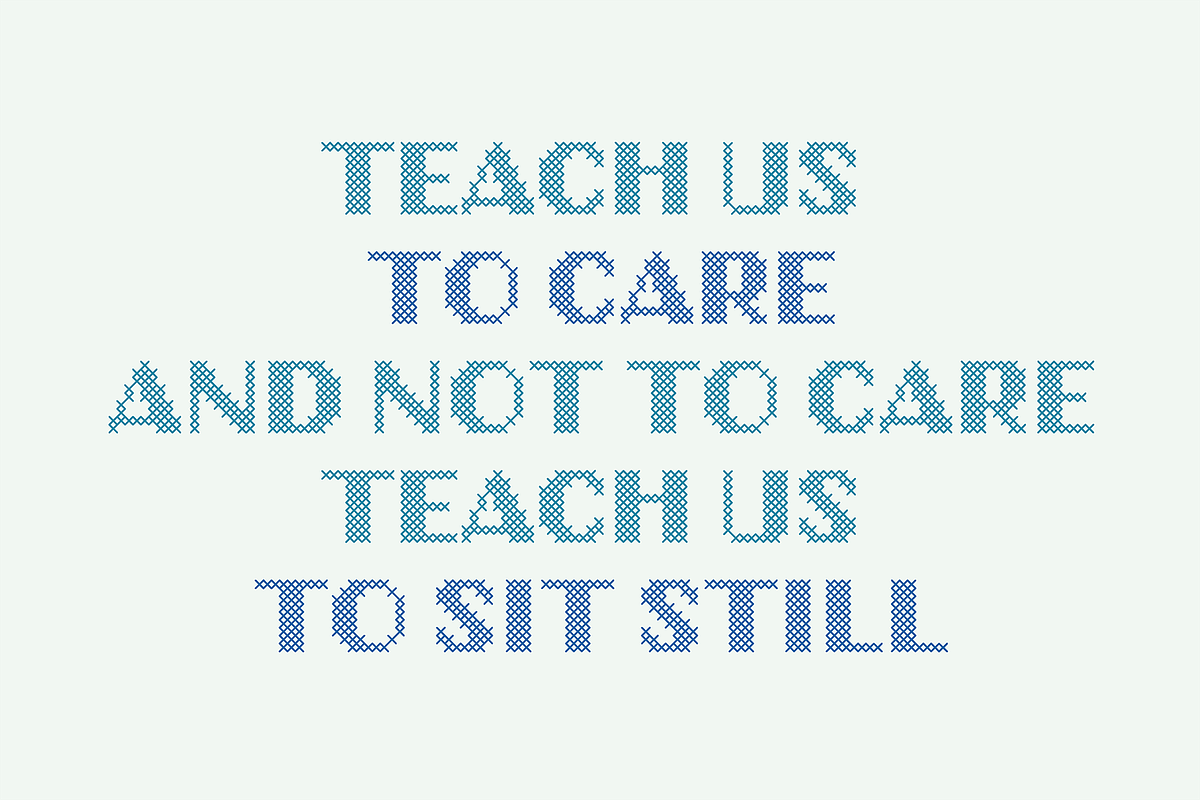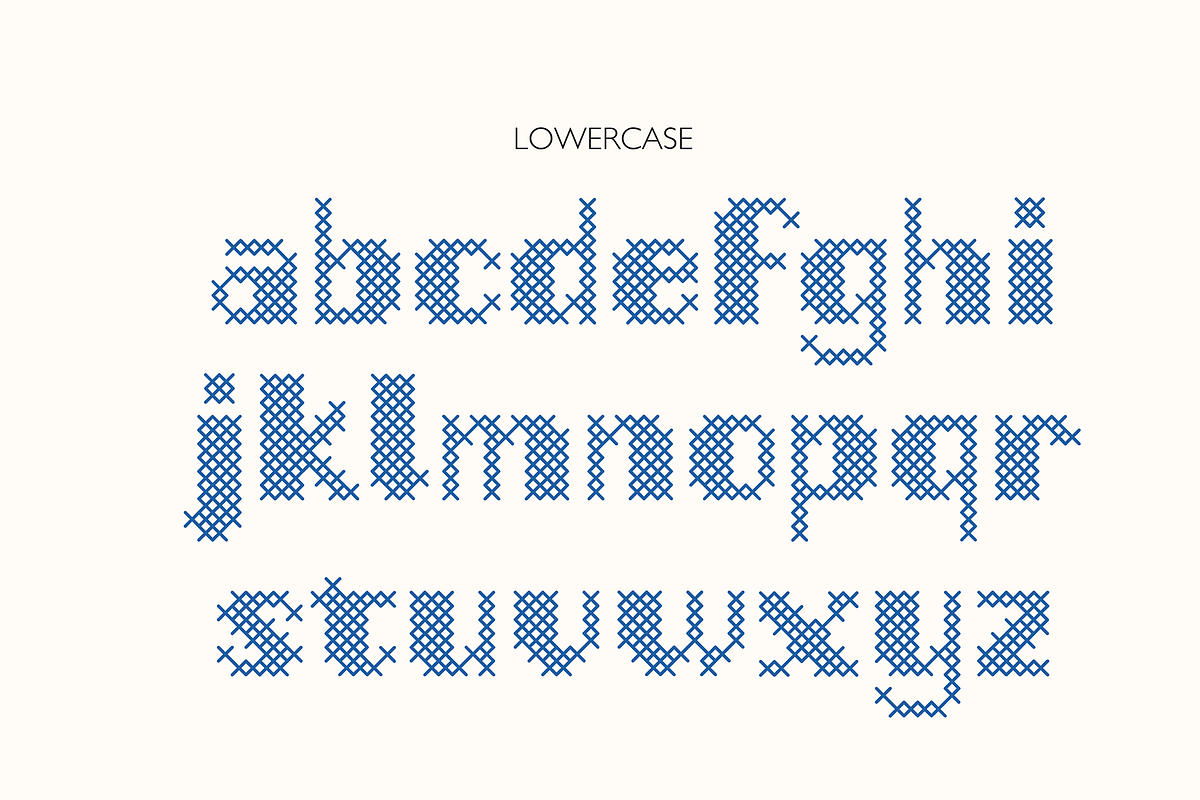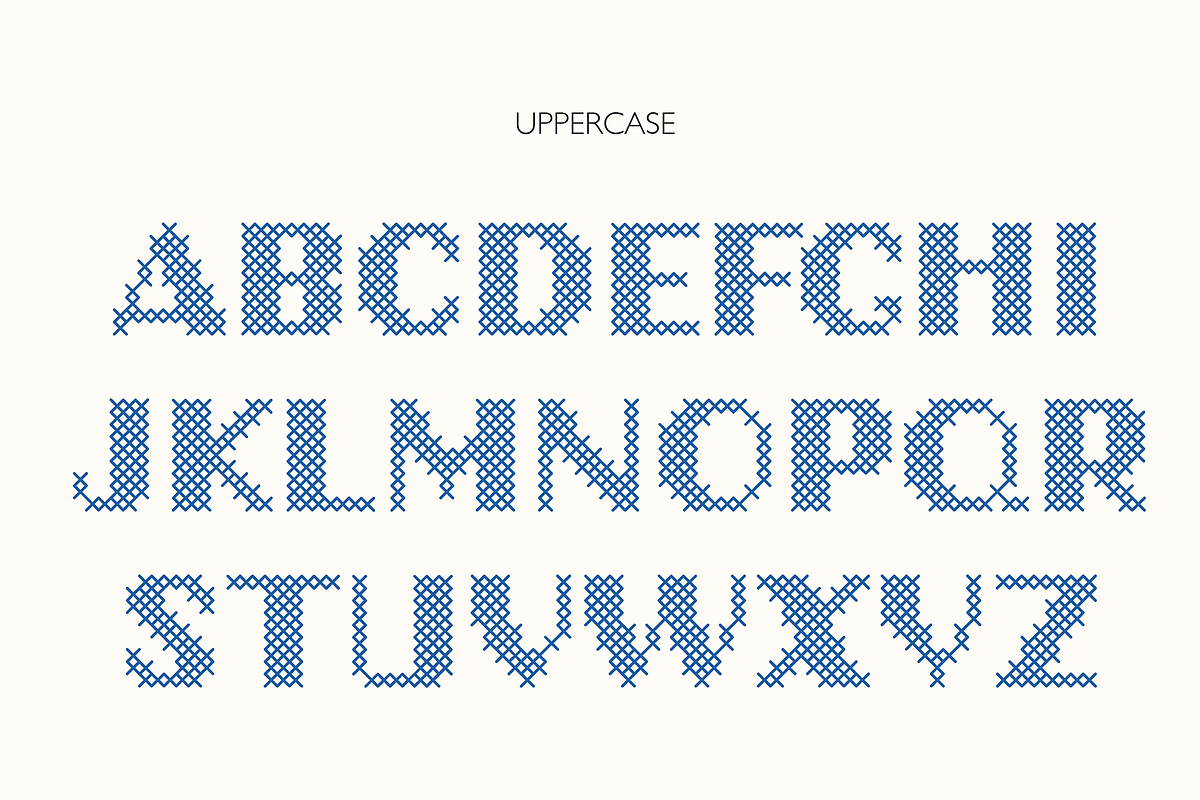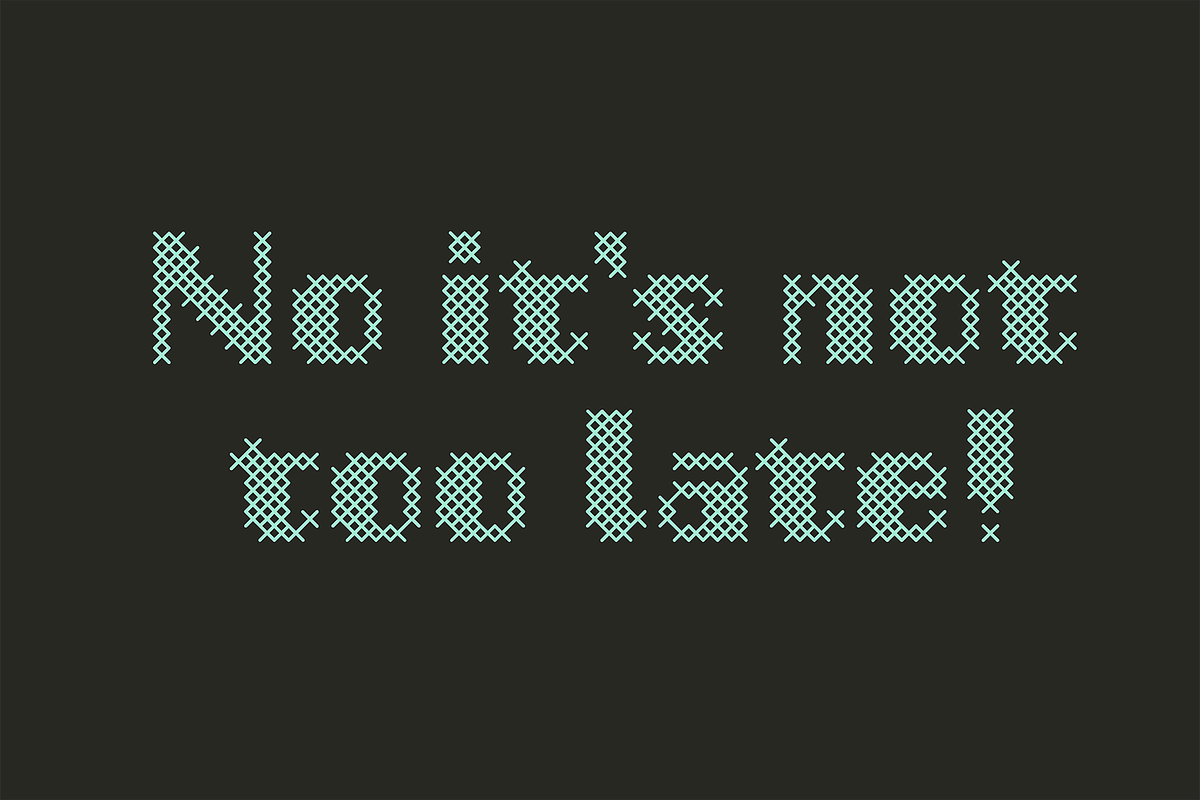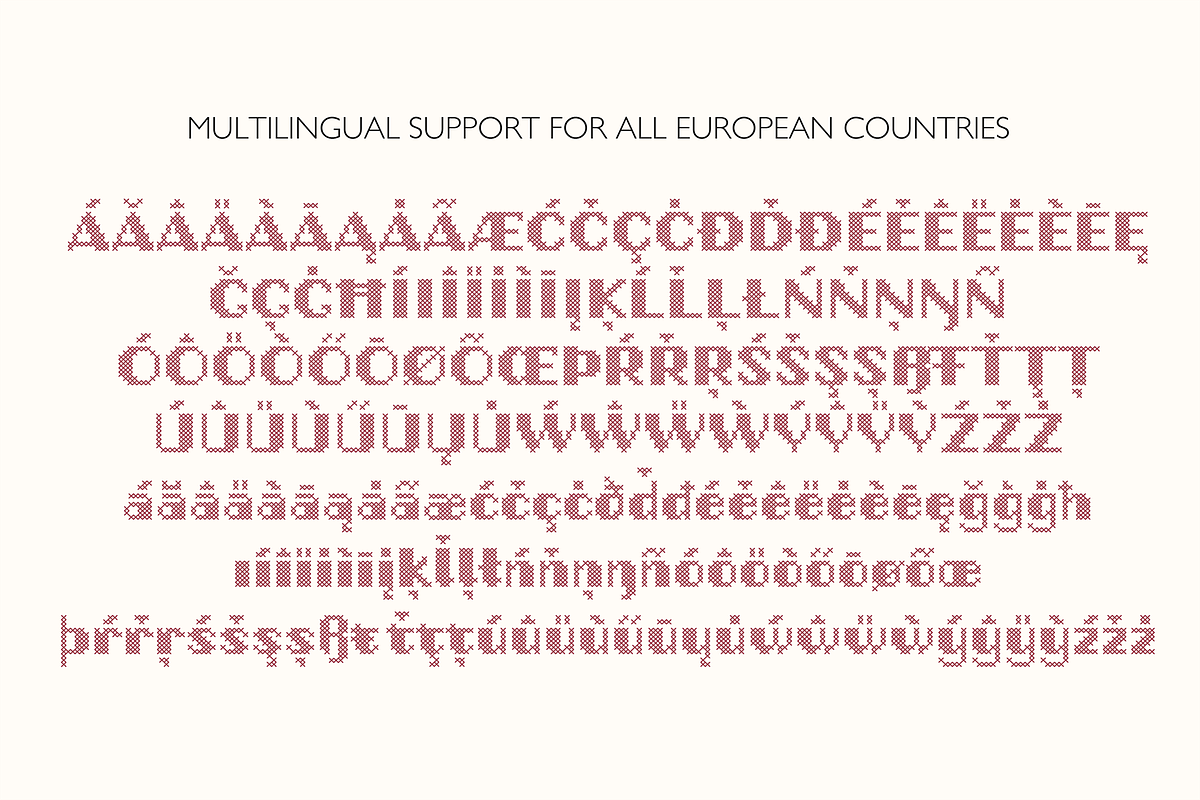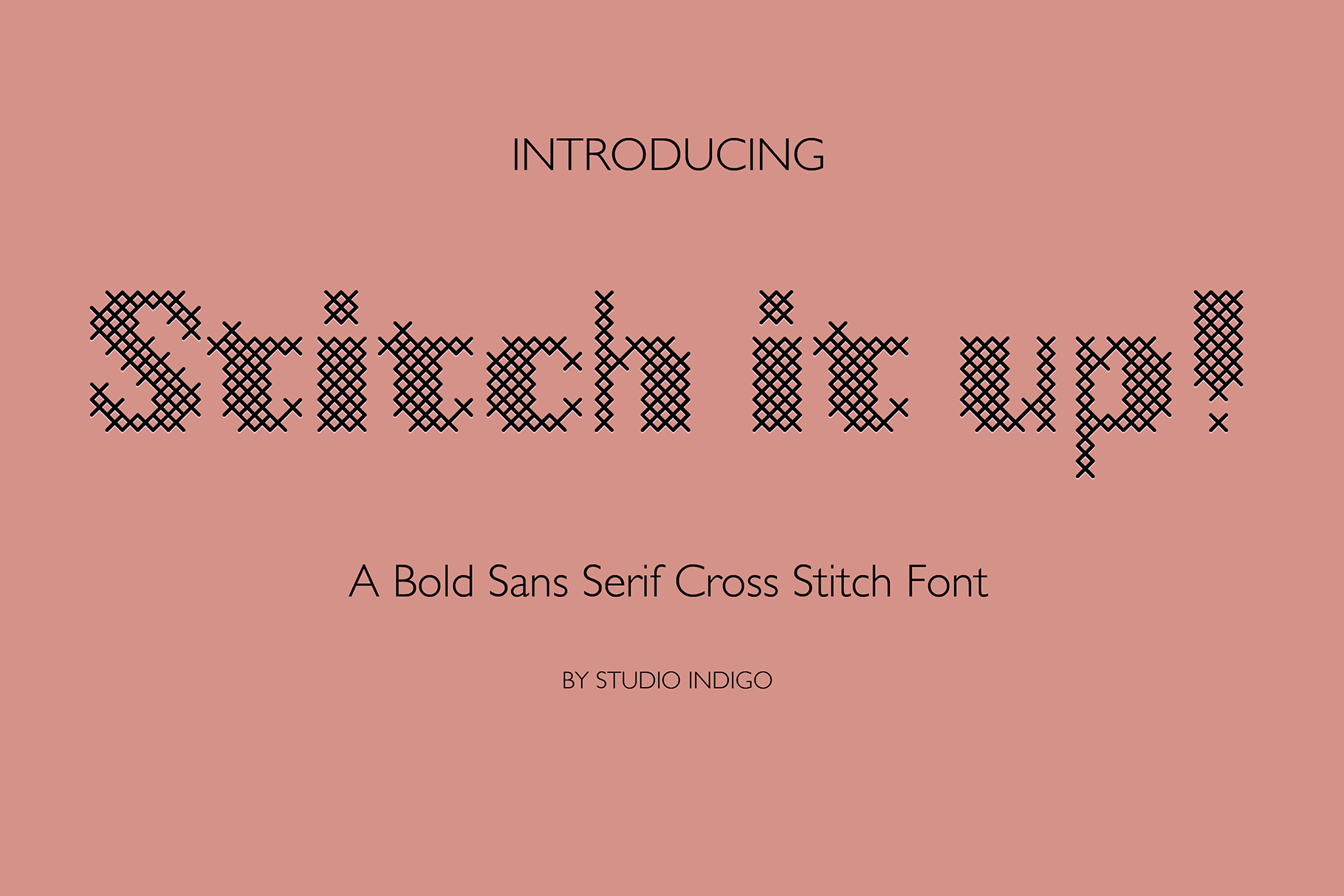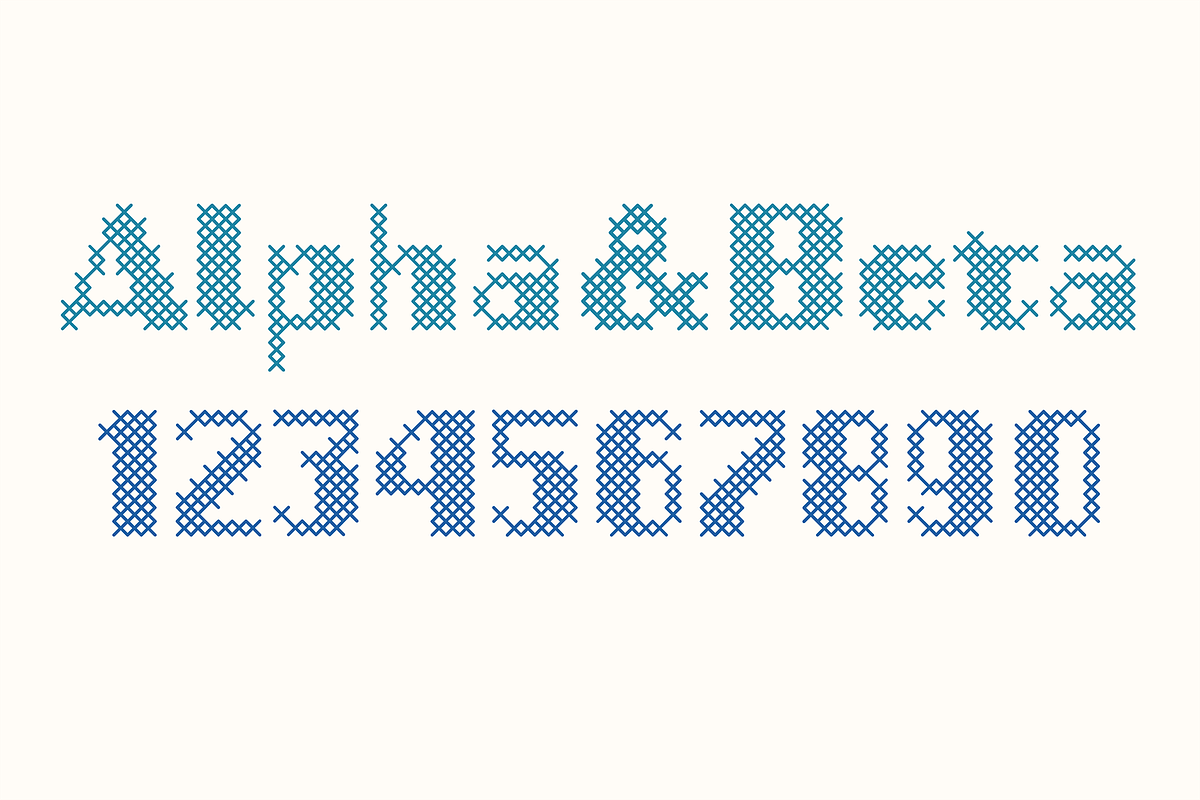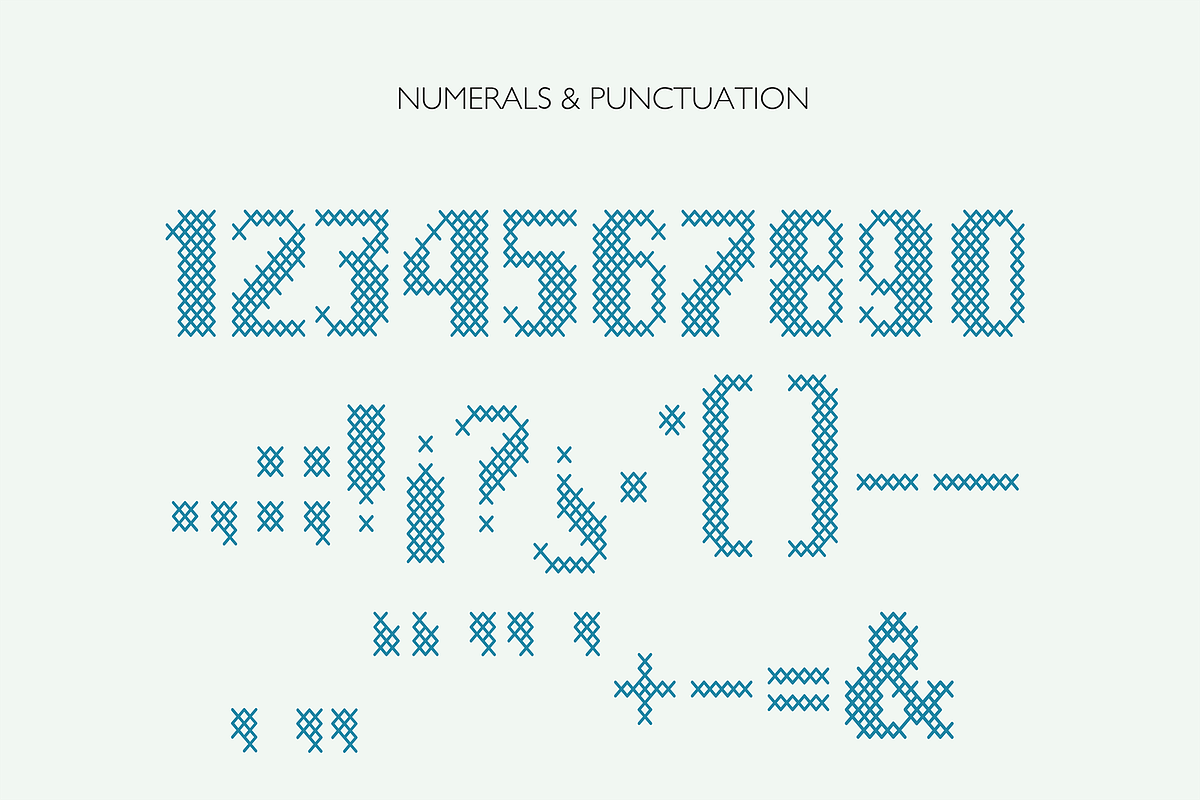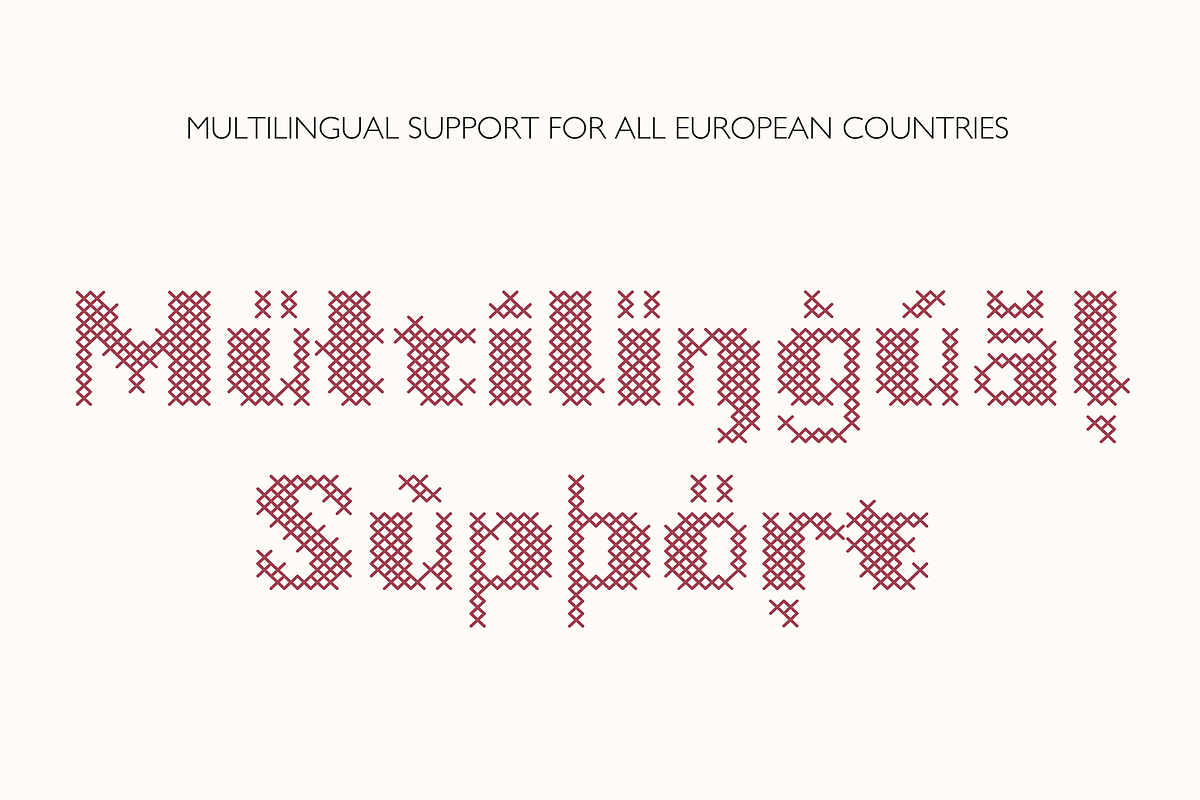
Stitch it up! A cross-stitch font
Stitch it up is a bold sans-serif display cross-stitch font for your design projects. It has multilingual support for all European countries. It is intended for headings, advertisements and signs in larger sizes rather than continuous body text
Stitch it up comes with:
- Uppercase Letters A–Z
- Lowercase Letters a–z
- Numerals and the most common Punctuation.
- Multilingual support for all European countries. (Tips! You can try the font in the font preview first.)